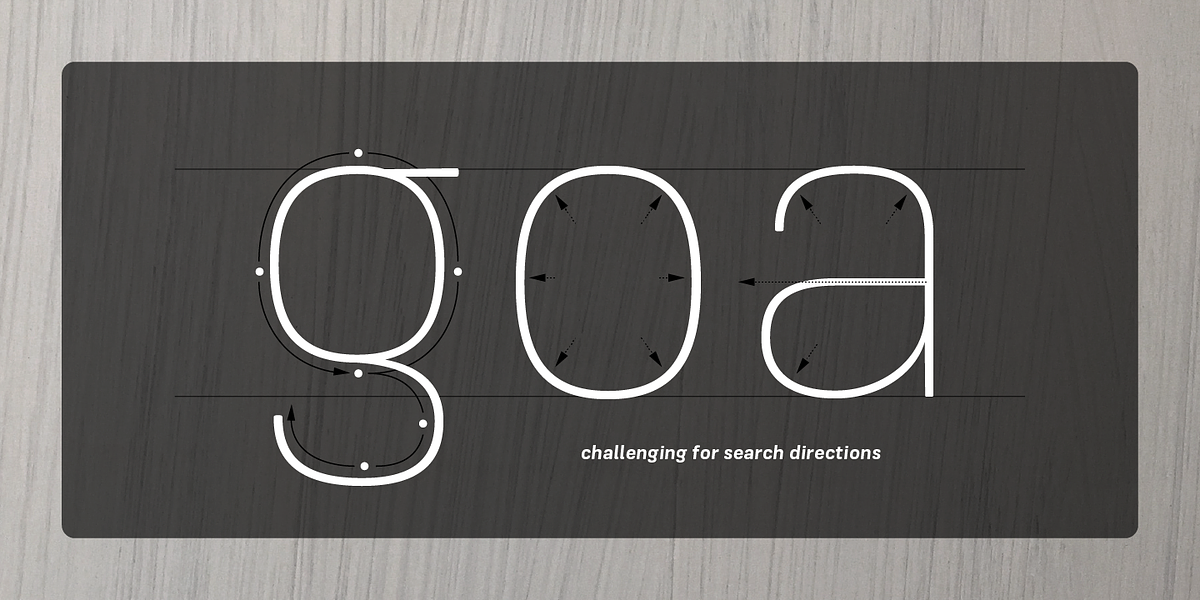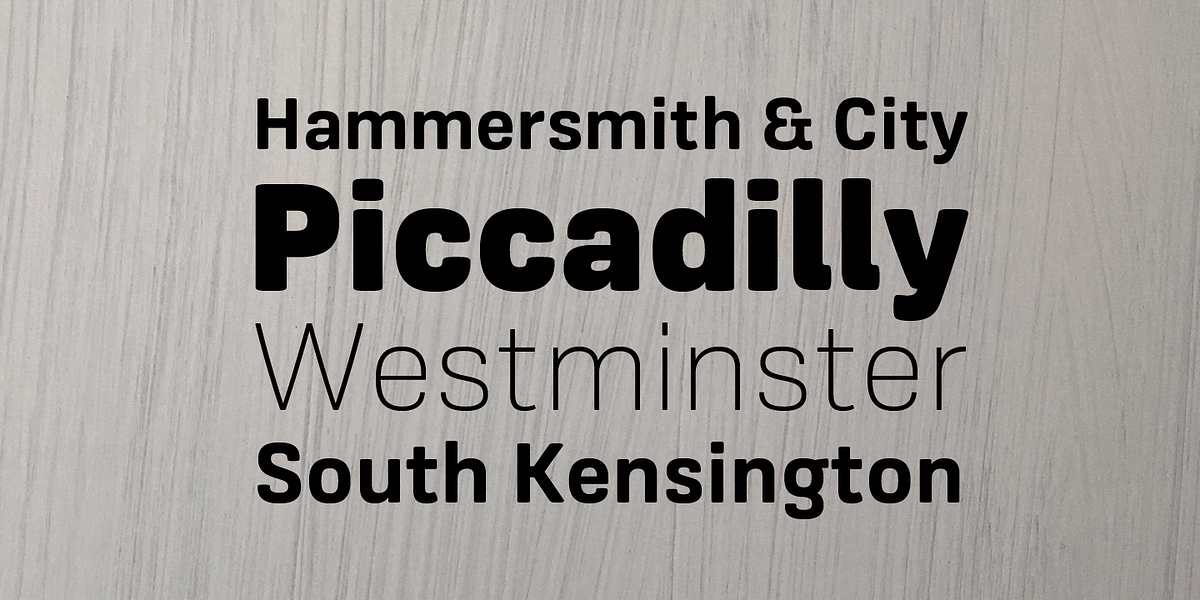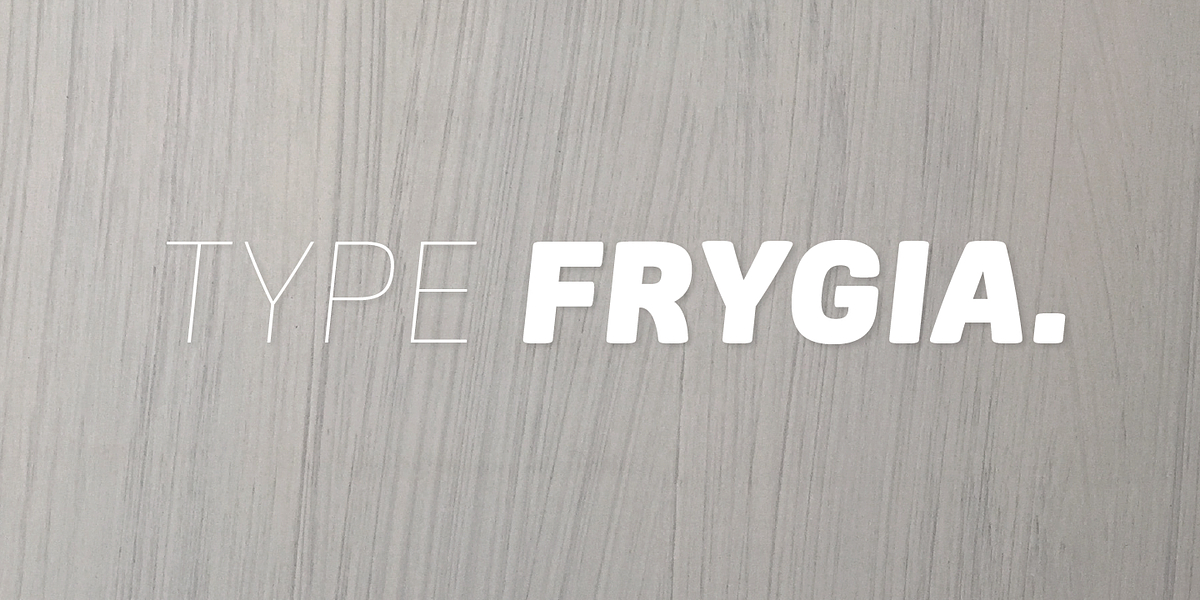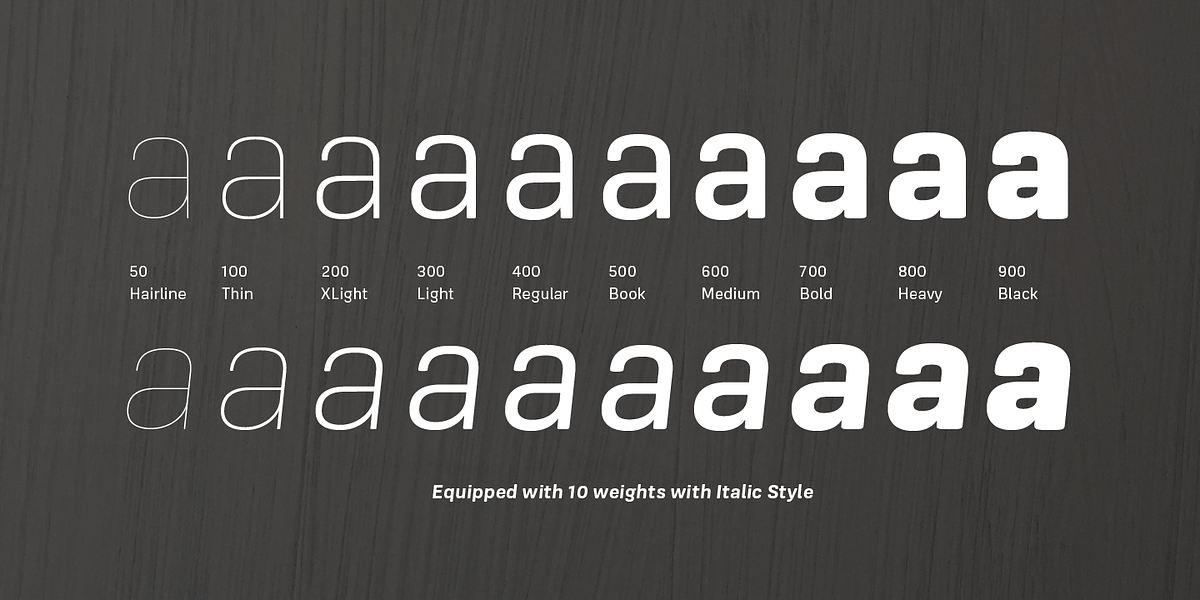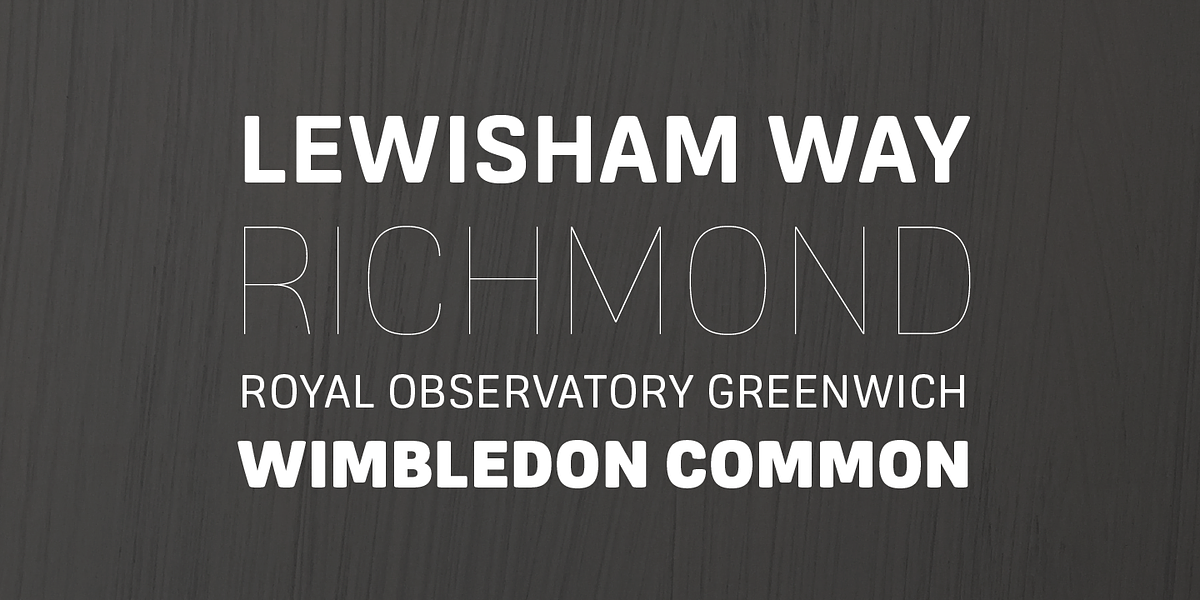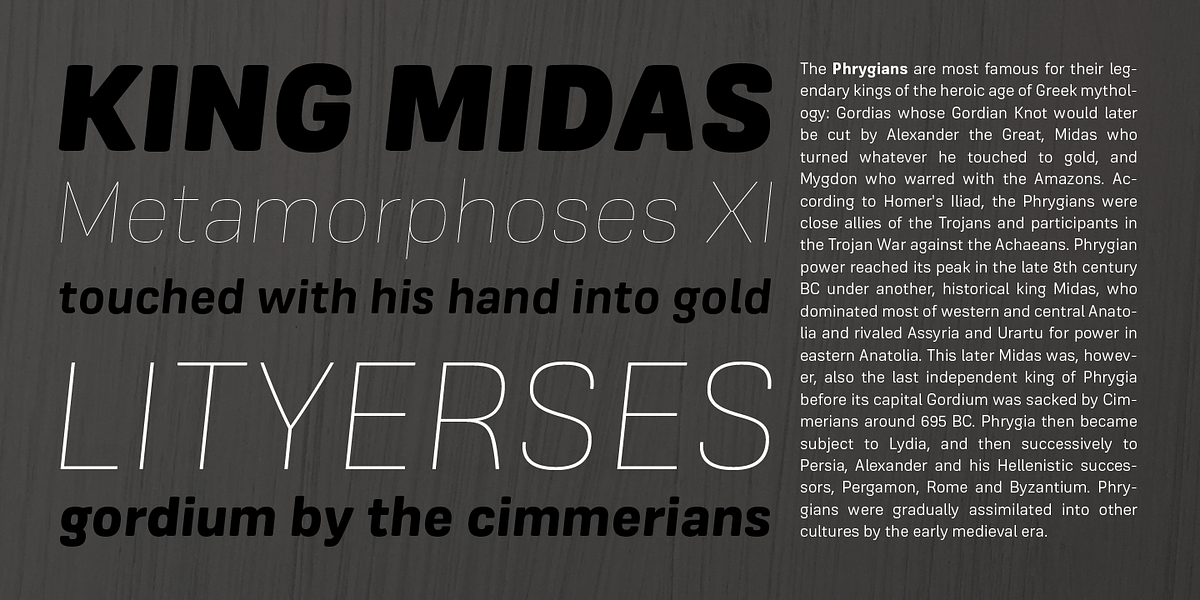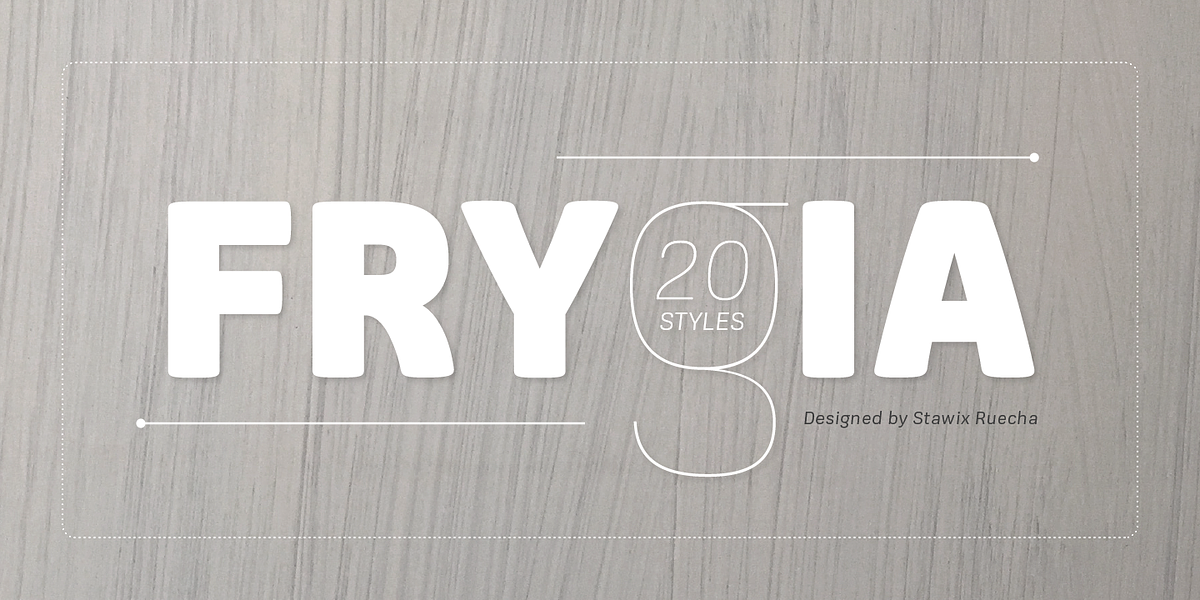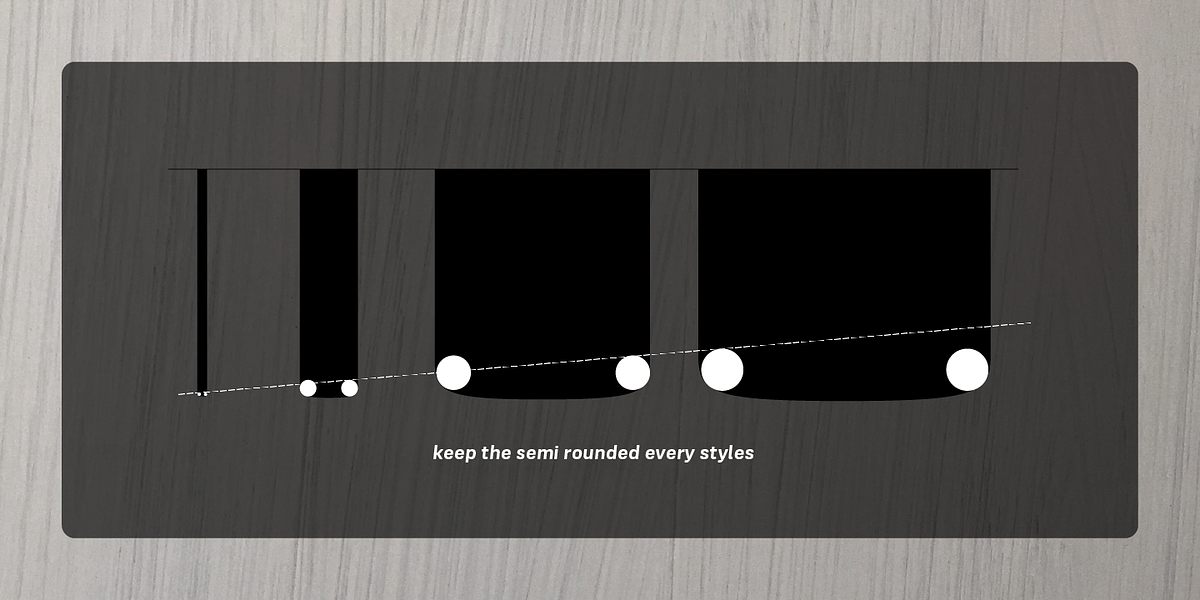
Frygia
Frygia is a geometric sans-serif typeface inspired by both mythology and industrial design. Its unique lowercase 'g' construction features a slightly curved line structure, creating an optical illusion. The font family offers 20 styles across 10 weights, ranging from Hairline to Black, and includes semi-rounded corners for a softer aesthetic.